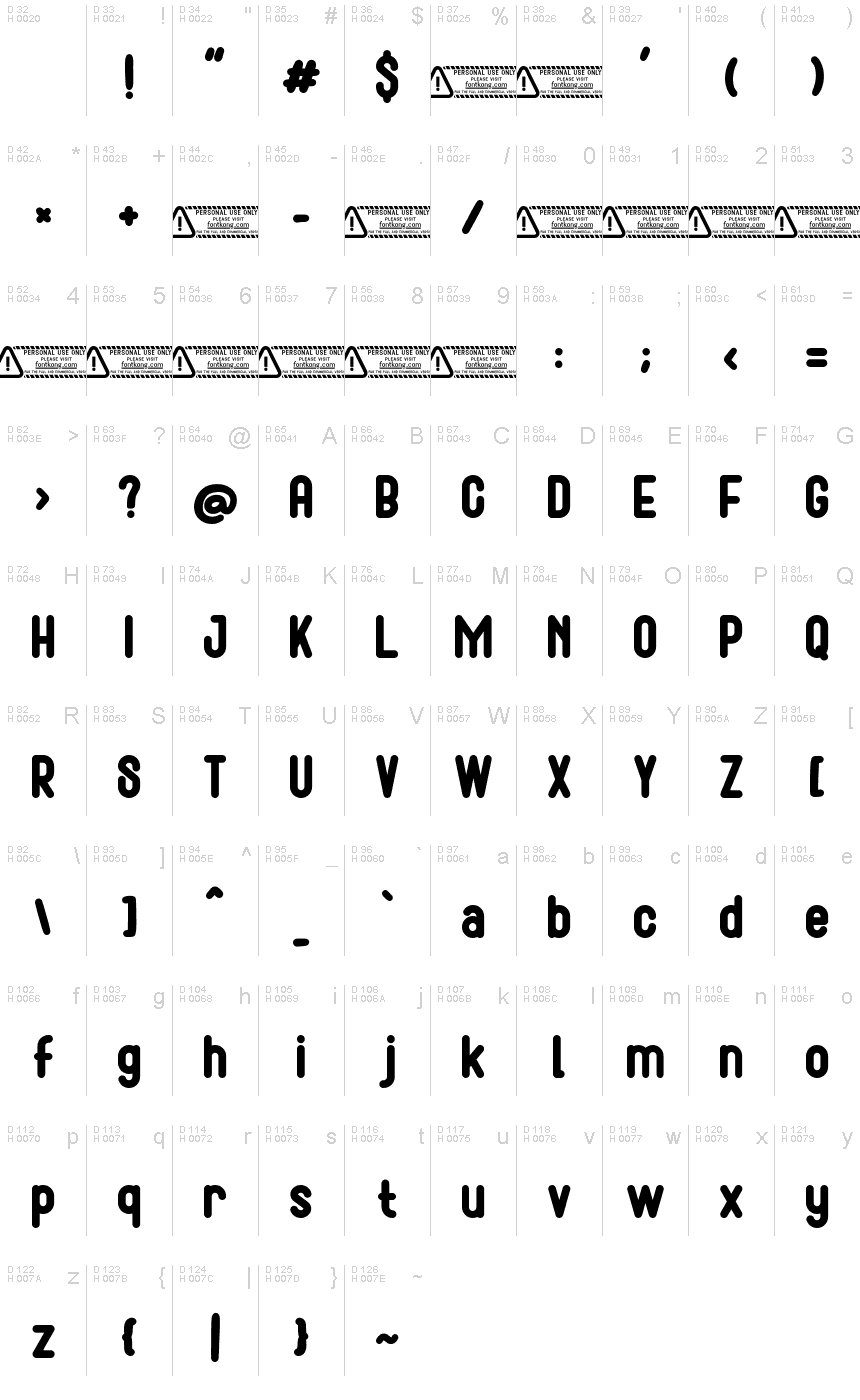
The Chieldren, a semi-bold display font by Kong Font, brings a unique blend of boldness and playfulness to the table. Its chunky characters boast a contemporary vibe with a touch of whimsy, making it an excellent choice for projects that aim to be eye-catching and engaging.
The aesthetic appeal of The Chieldren lies in its balance between impact and readability. The semi-bold weight ensures that the typeface stands out on any backdrop without overwhelming the eyes, while the clean lines maintain clarity even at larger sizes. This duality makes it versatile for various creative endeavors.
Ideal for headlines, posters, branding, and digital media that demand personality, The Chieldren serves as a charismatic anchor to your design composition. Its style resonates with modern trends but also carries an evergreen quality that could complement diverse themes ranging from children's literature to edgy advertising campaigns.